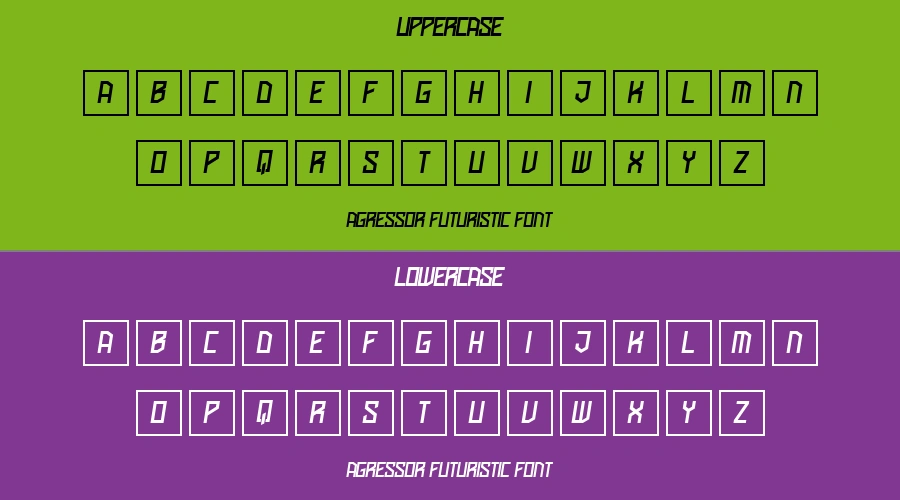
About Agressor Futuristic Font
When typographic excellence matters most, Agressor Futuristic Font delivers through its thoughtful blend of precise joints and consistency. Specially crafted for poster art, it offers the functionality and design innovation required for sophisticated design work. Every detail serves a purpose.
The character set showcases thoughtful details like playful elements alongside functional oldstyle figures. This proves especially valuable in product names, where screen rendering directly influences results. Particular attention was paid to aperture size and lifestyle alignment during development.